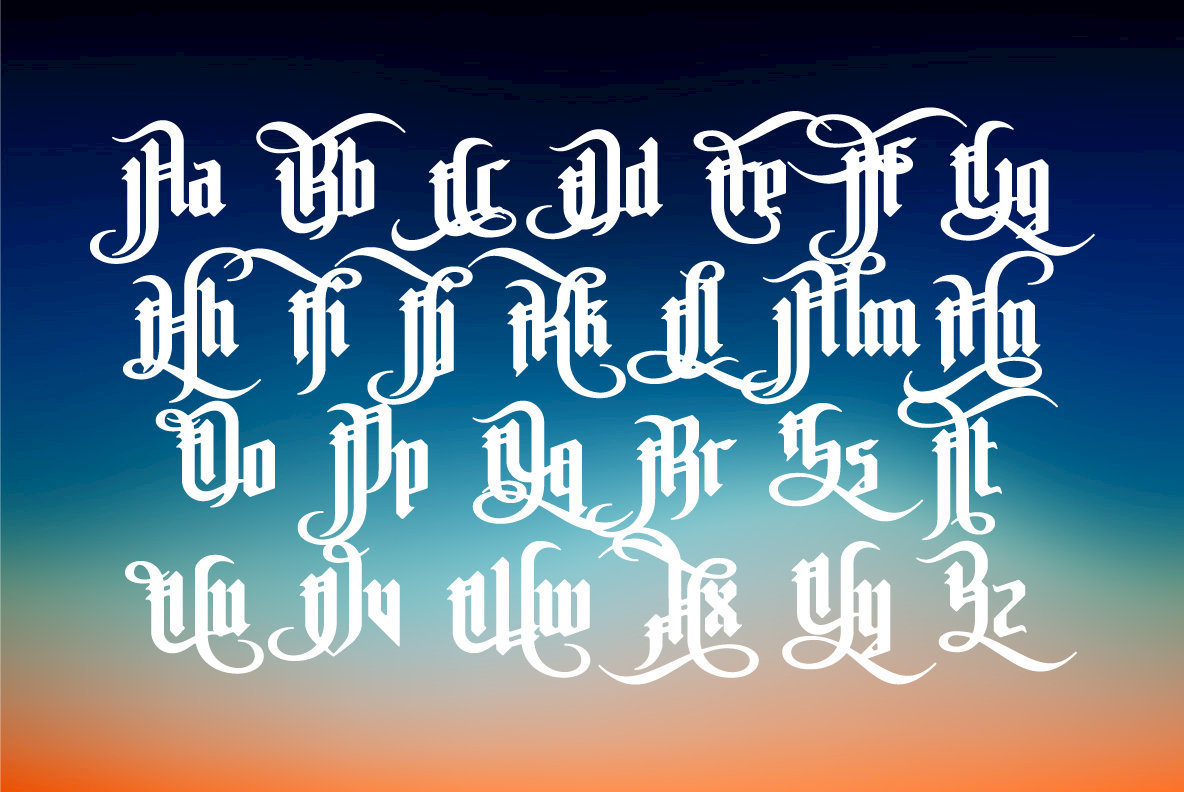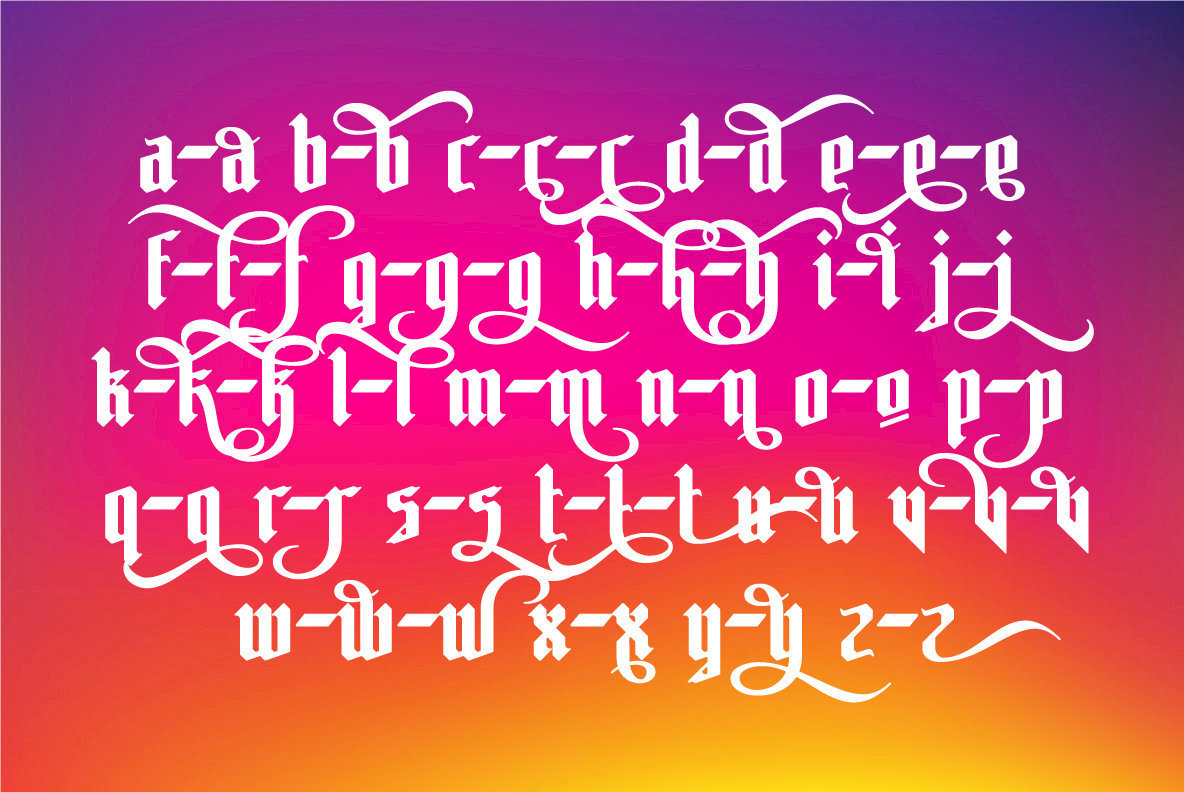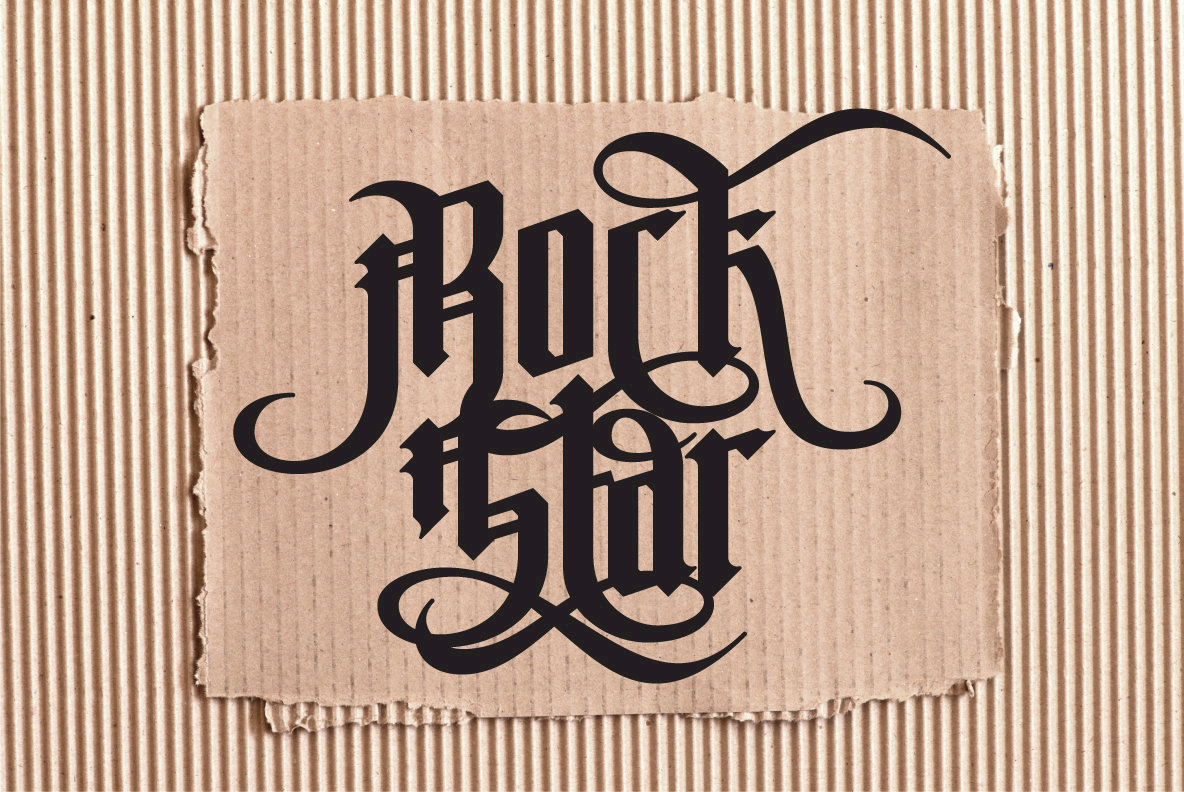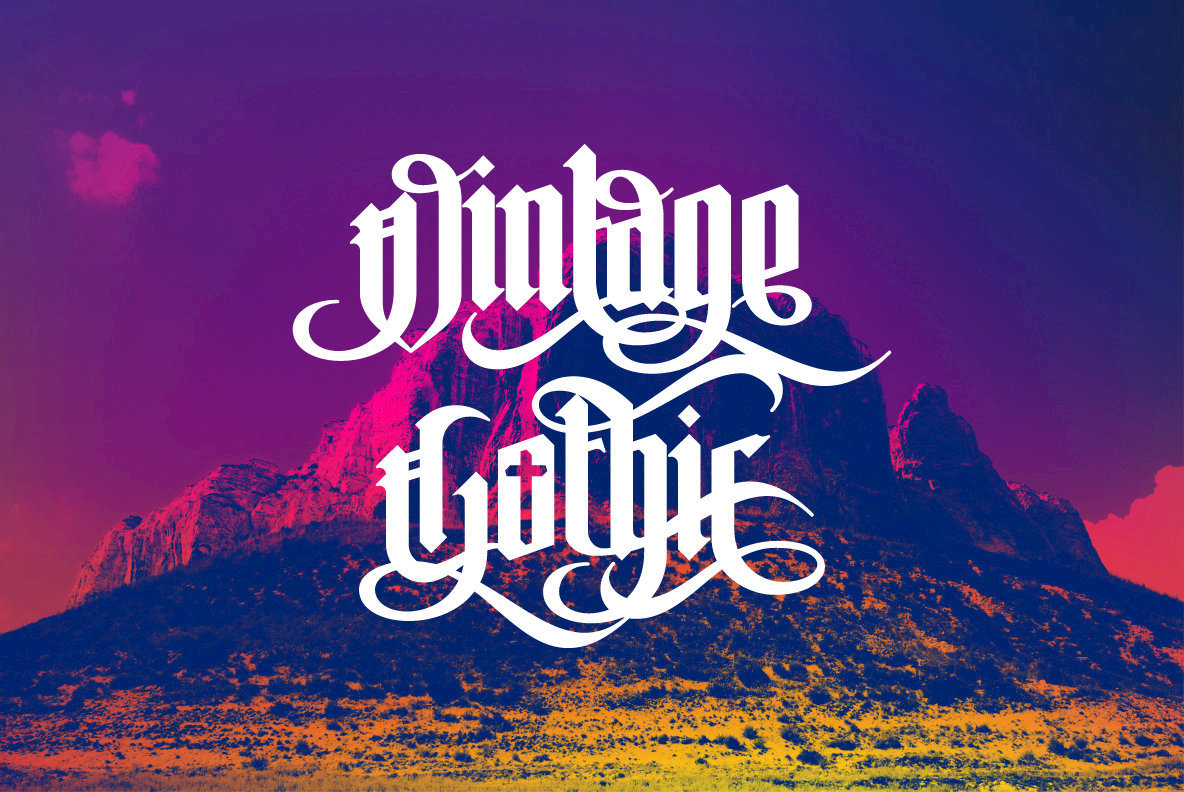
Pontifice Font
Pontifice
Pontifice Condenced
Hello friends, let me introduce my new gothic typeface - the Pontifice..
Is suitable for simple logo design, website header, wedding, invitations, fashion, menu designs and others. Good for vintage theme, tattoes etc. Pontifice has soft corners, Pontifice condensed has more tall glyphs. Also both font has different features as ligatures and alternates.